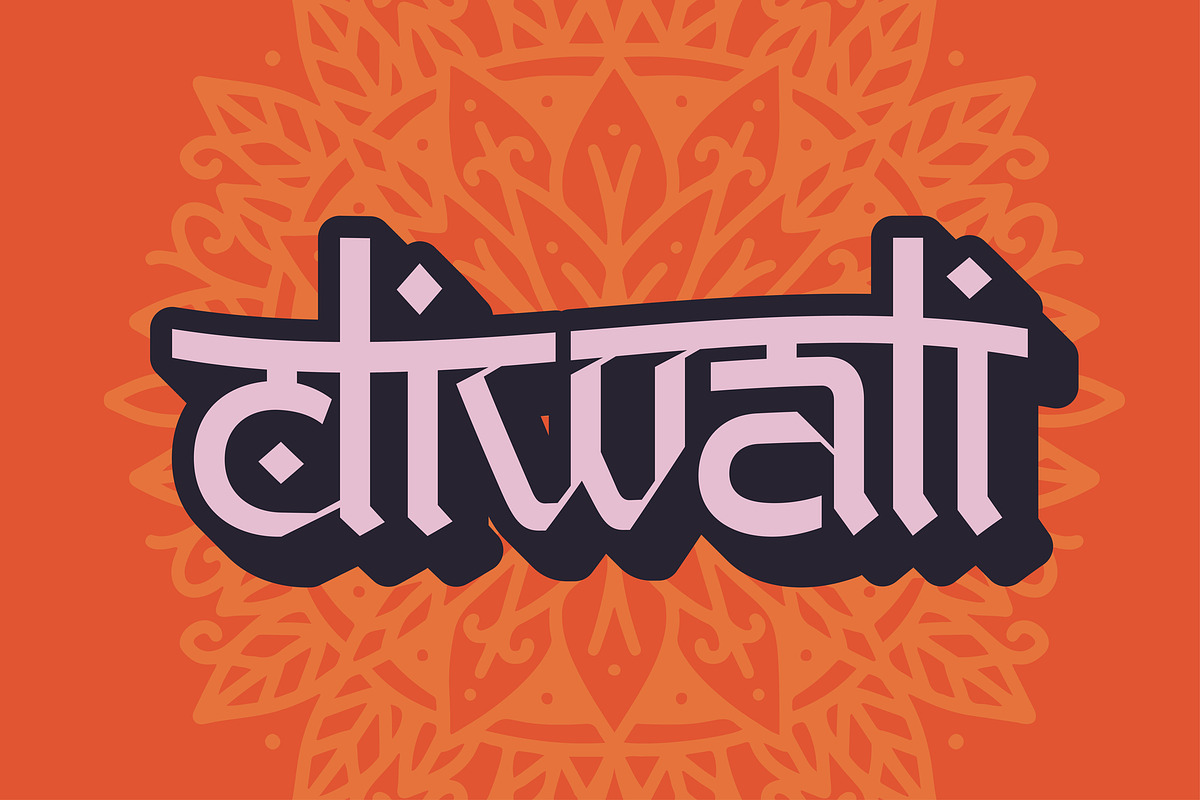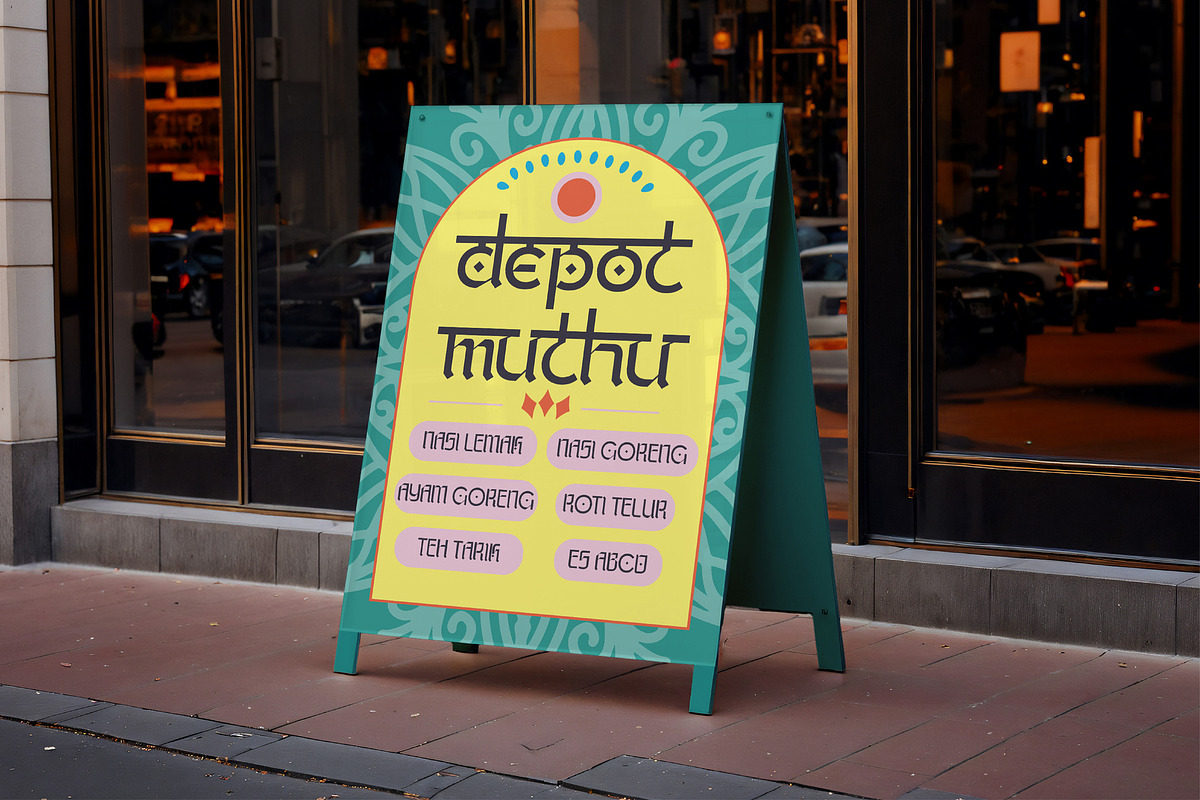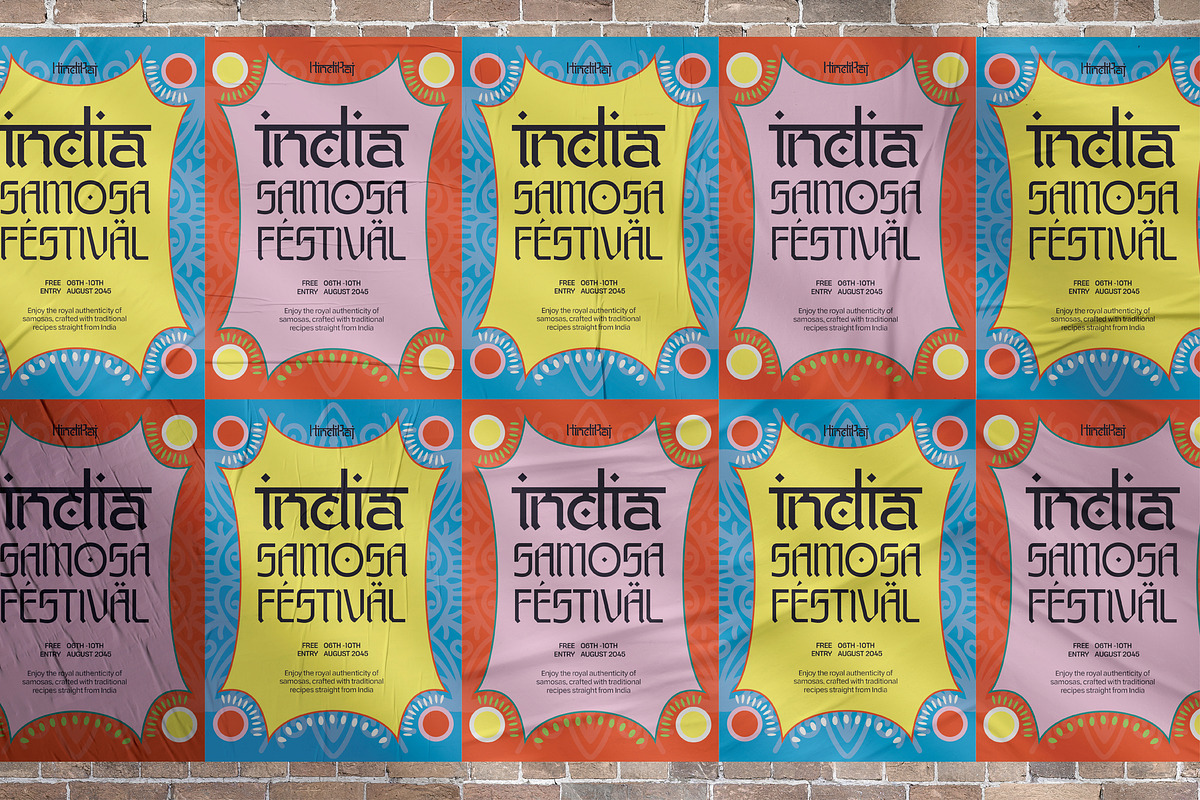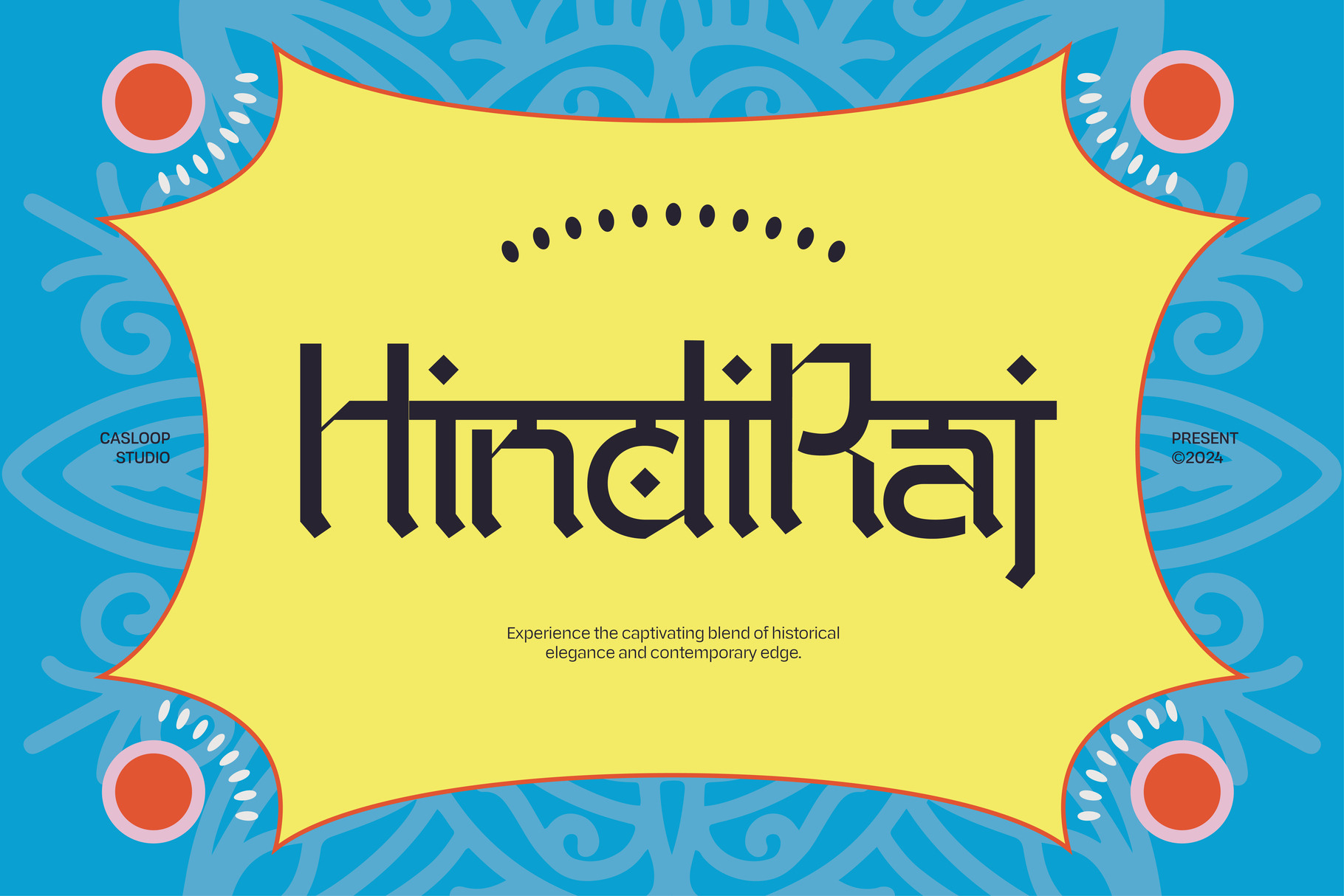
Hindi Raj - Festive Devanagari Font
Introducing Hindi Raj, a dazzling celebration of India’s vibrant heritage. This unique font captures the essence of blazing colors, festive traditions, and the rich cultural tapestry of Indian festivals.
Hindi Raj stands out with its Gentle Sans Serif and ornate, decorative style, combining the luminous beauty of Indian fireand the intricate allure of color powder used in celebrations. Its eccentric and artistic form brings a touch of the extraordinary to any project.
Whether you’re designing a logo, a poster, or a greeting card, Hindi Raj elevates your branding with its classic and expressive character. Perfect for social media posts, samarkan alternative, editorial layouts, or educational material, this font’s decorative flair makes it a standout choice for anything from packaging to magazines.
Add a touch of classy originality to your designs with Hindi Raj. Its decorative experimental style ensures your work not only stands out but also resonates with the heart of Indian celebration. Let your creativity shine and your projects stand out with this enchanting typeface.